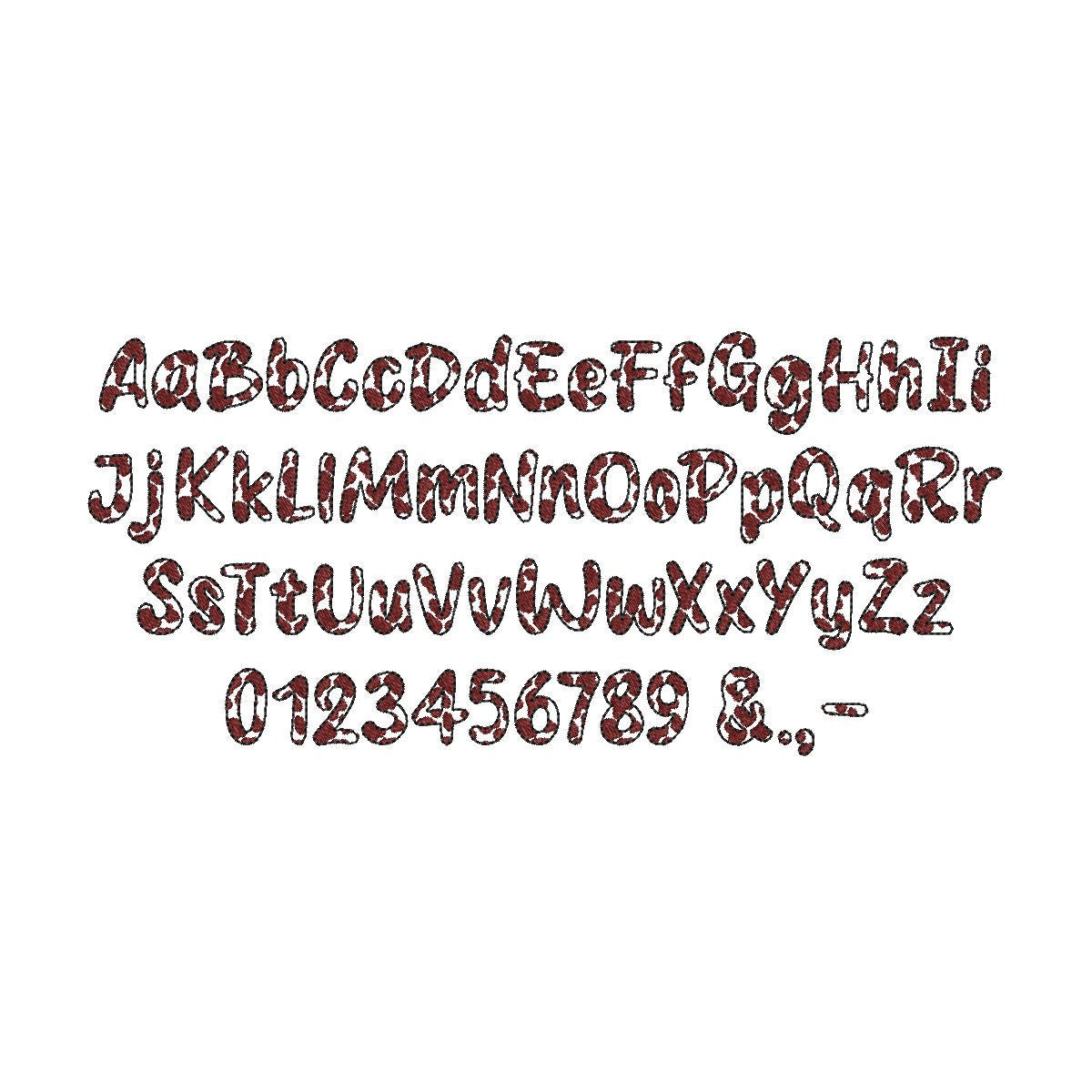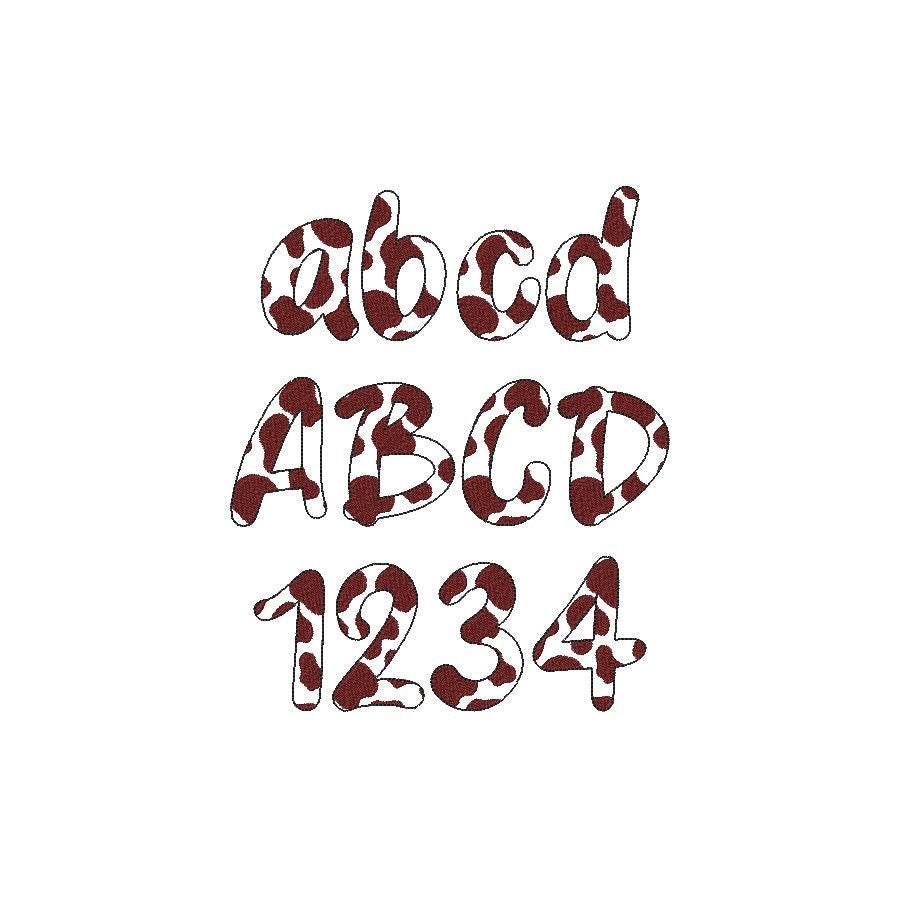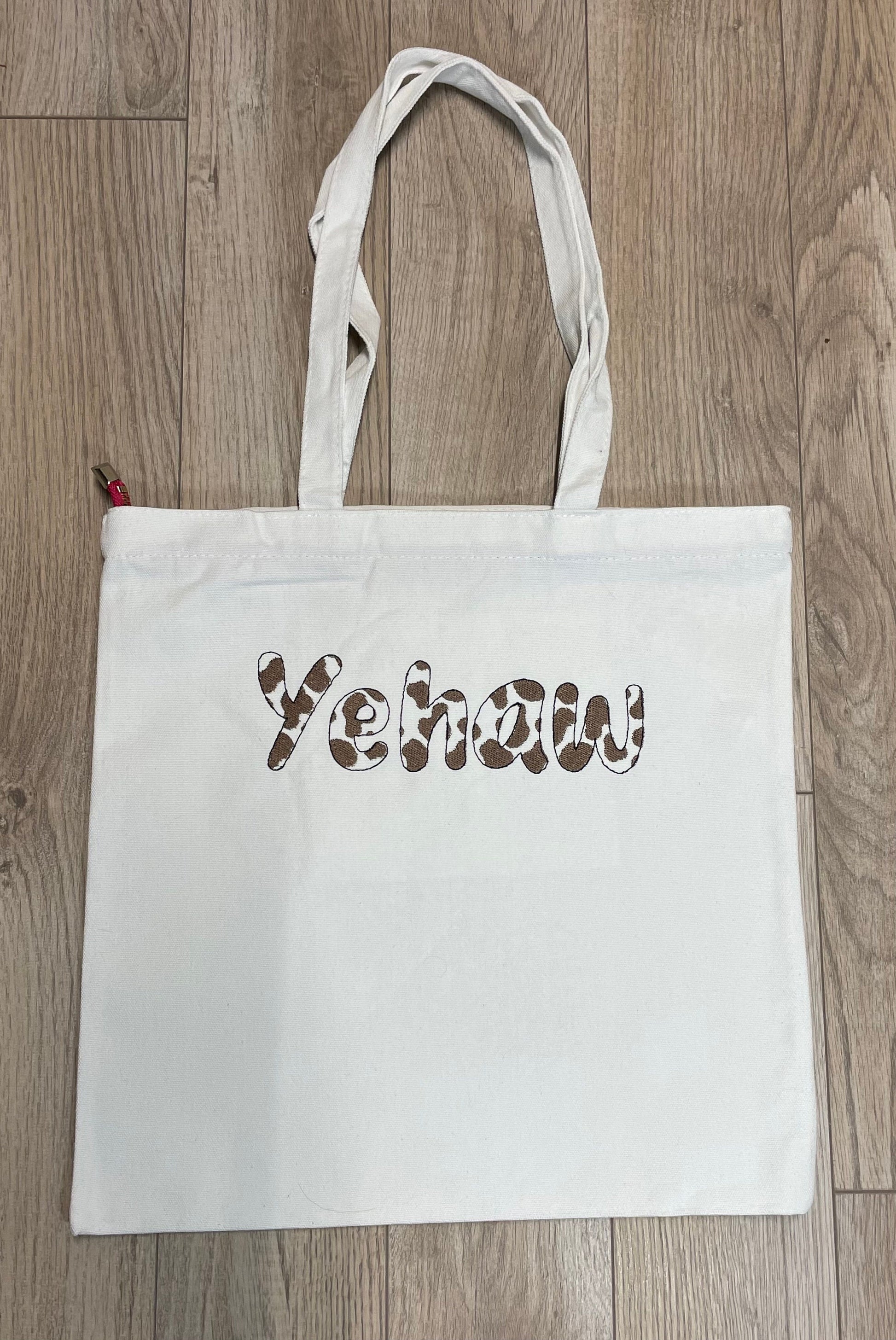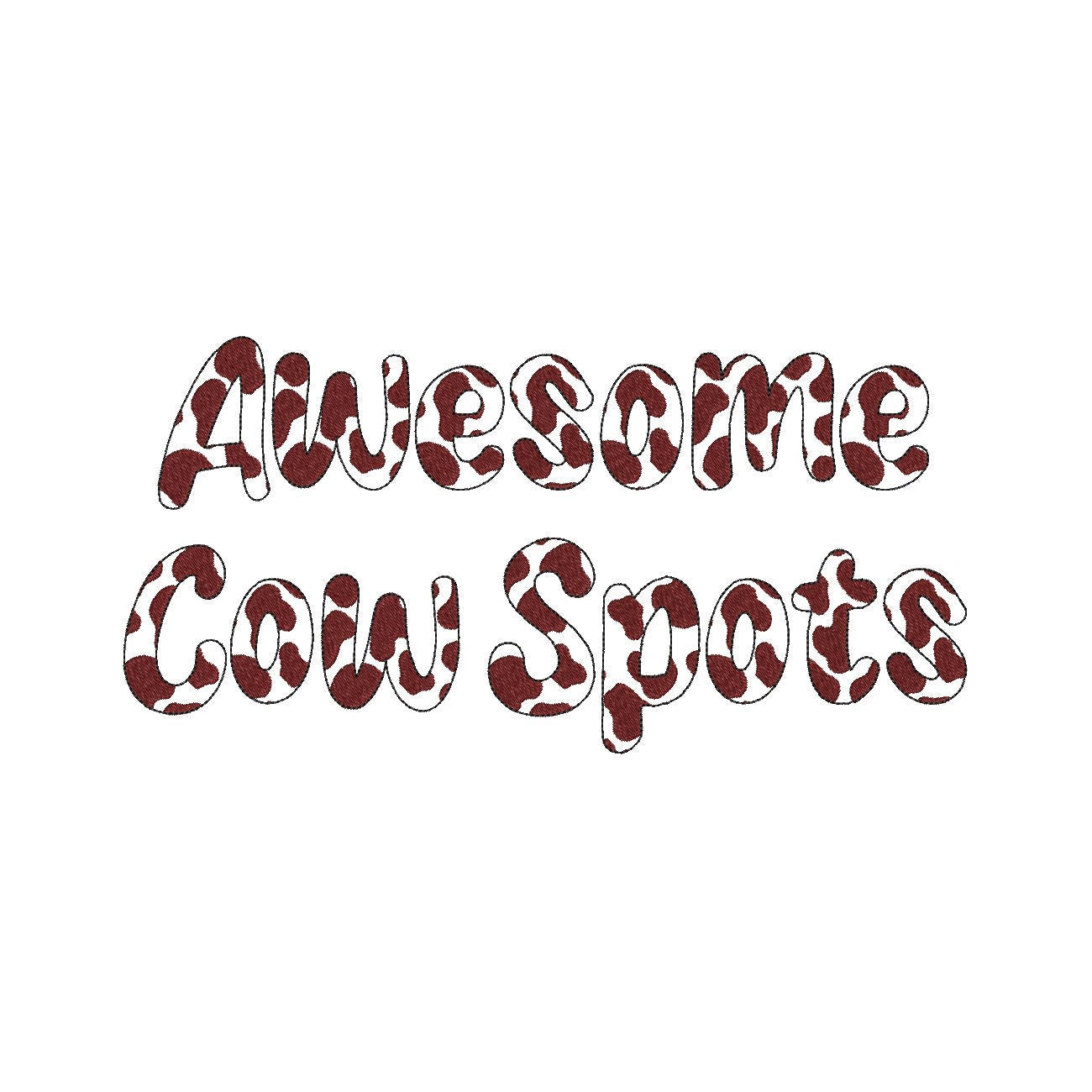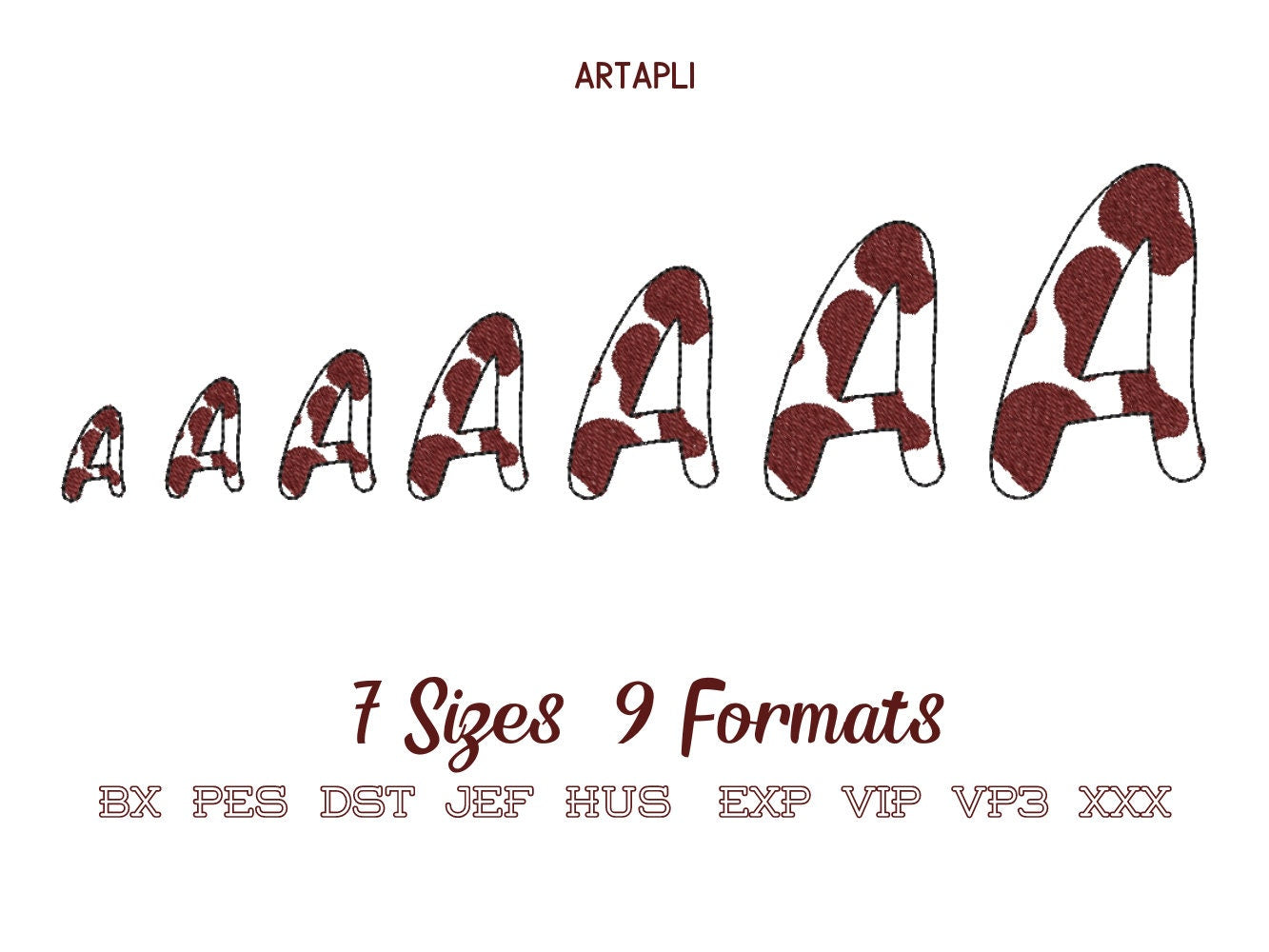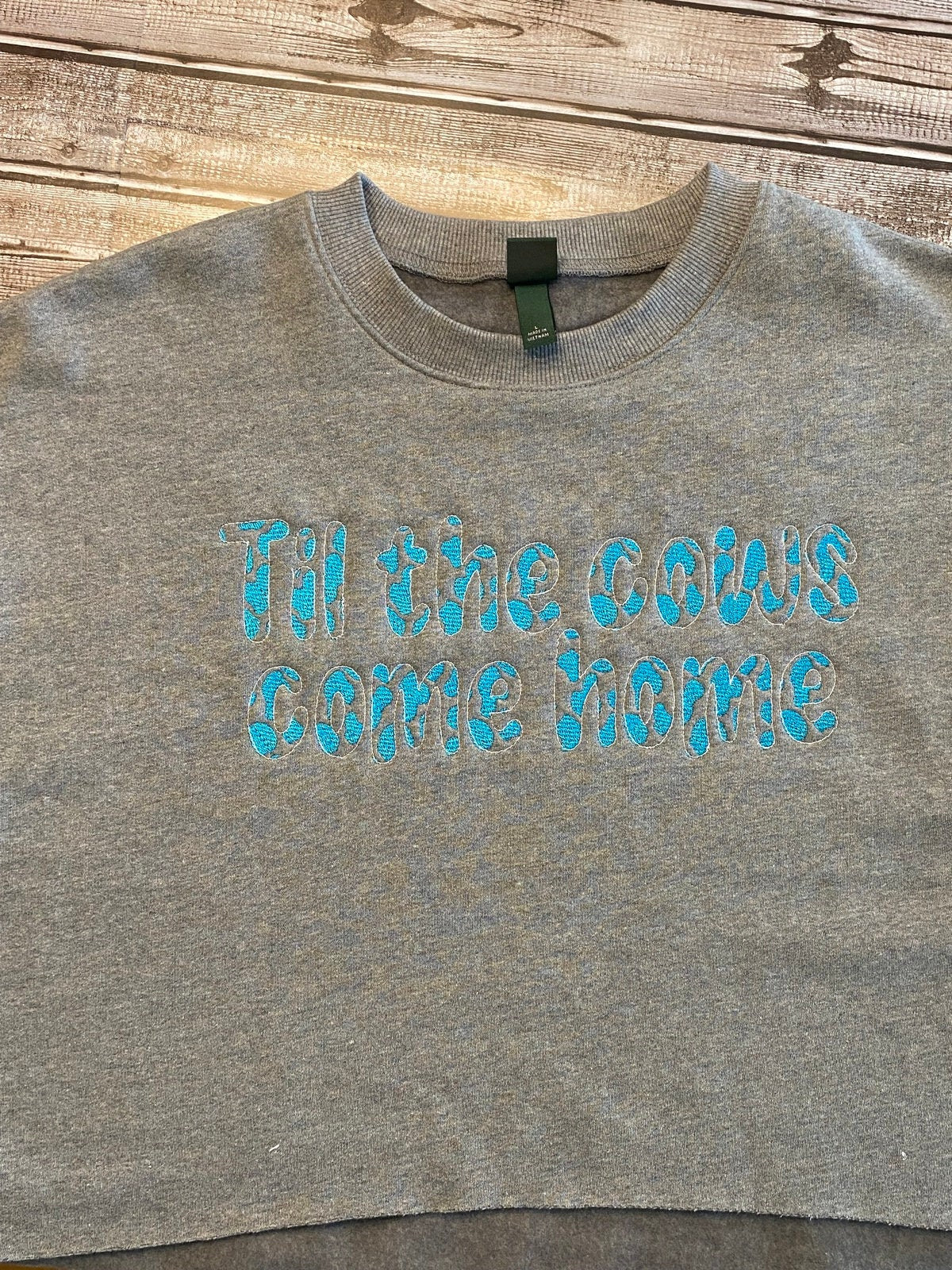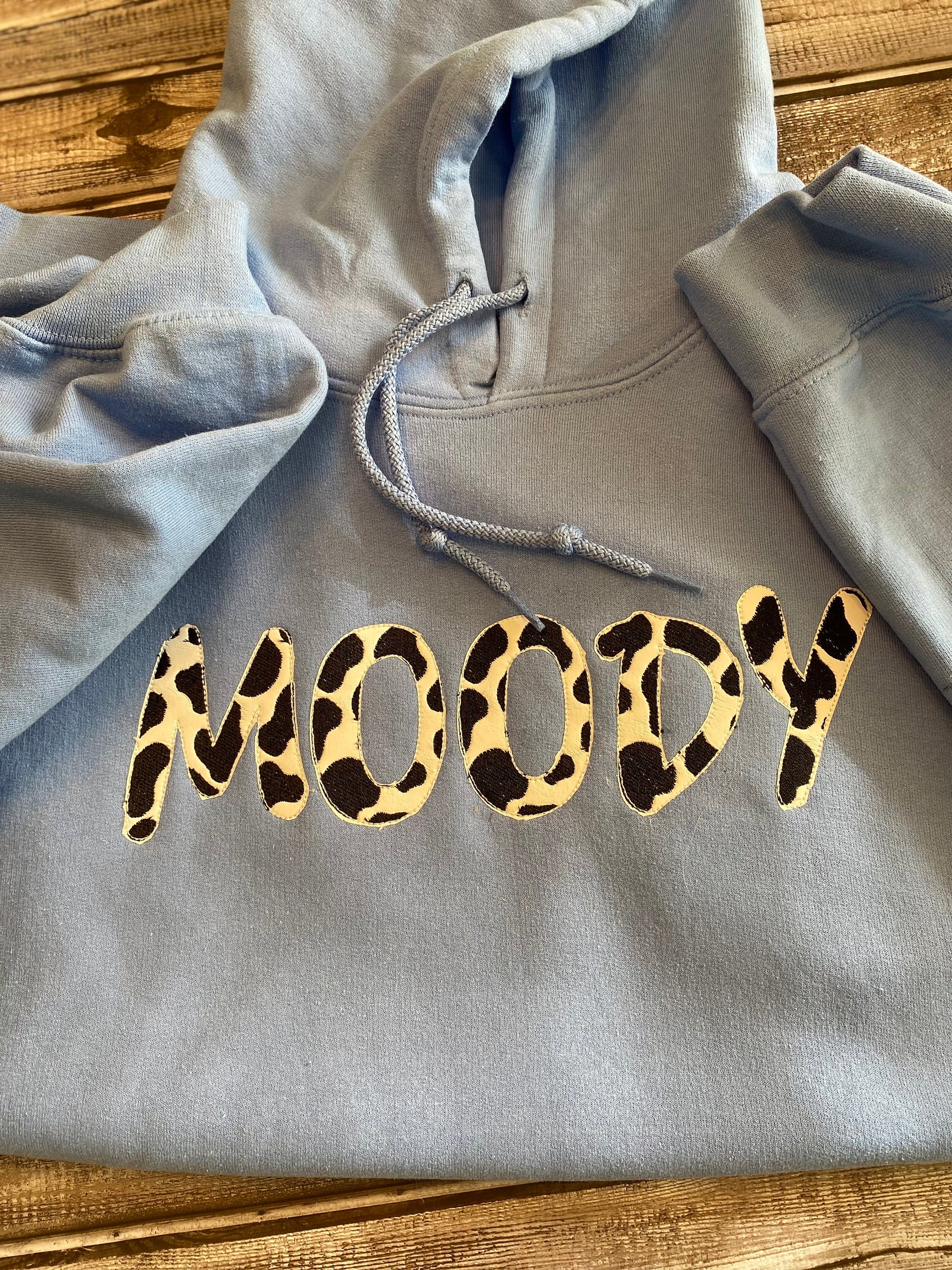
Or click to open the linkA cow spots patterned font in fill stitch with an outline, for farm-themed names on kids' shirts, bags and pillows.
The fabric shows through between the spots; you can also stitch it as a raggedy edge applique. Uppercase and lowercase letters, numbers and & . , - in seven sizes: 0.8, 1, 1.3, 1.6, 2, 2.5 and 3 inches.